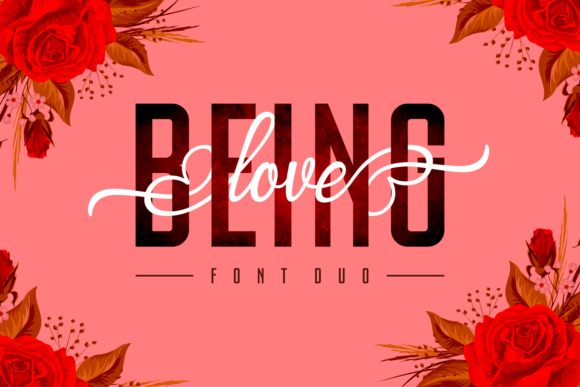
Being Love Duo Font
Hi designer. Cool creative style font duo for your new projects. First font is modern, thin & unique style handwritten script font. Second font is bold sans font. Introducing Being Love Font Duo. Being Love Duo Font is an unique font duo. It includes a luxurious script with a wide variety of swashes, and a striking sans version. Both styles can be combined perfectly and have a perfect readability. This works well for many applications. Everything from personal branding & wedding invitations to advertising could benefit from this collection of signature fonts.